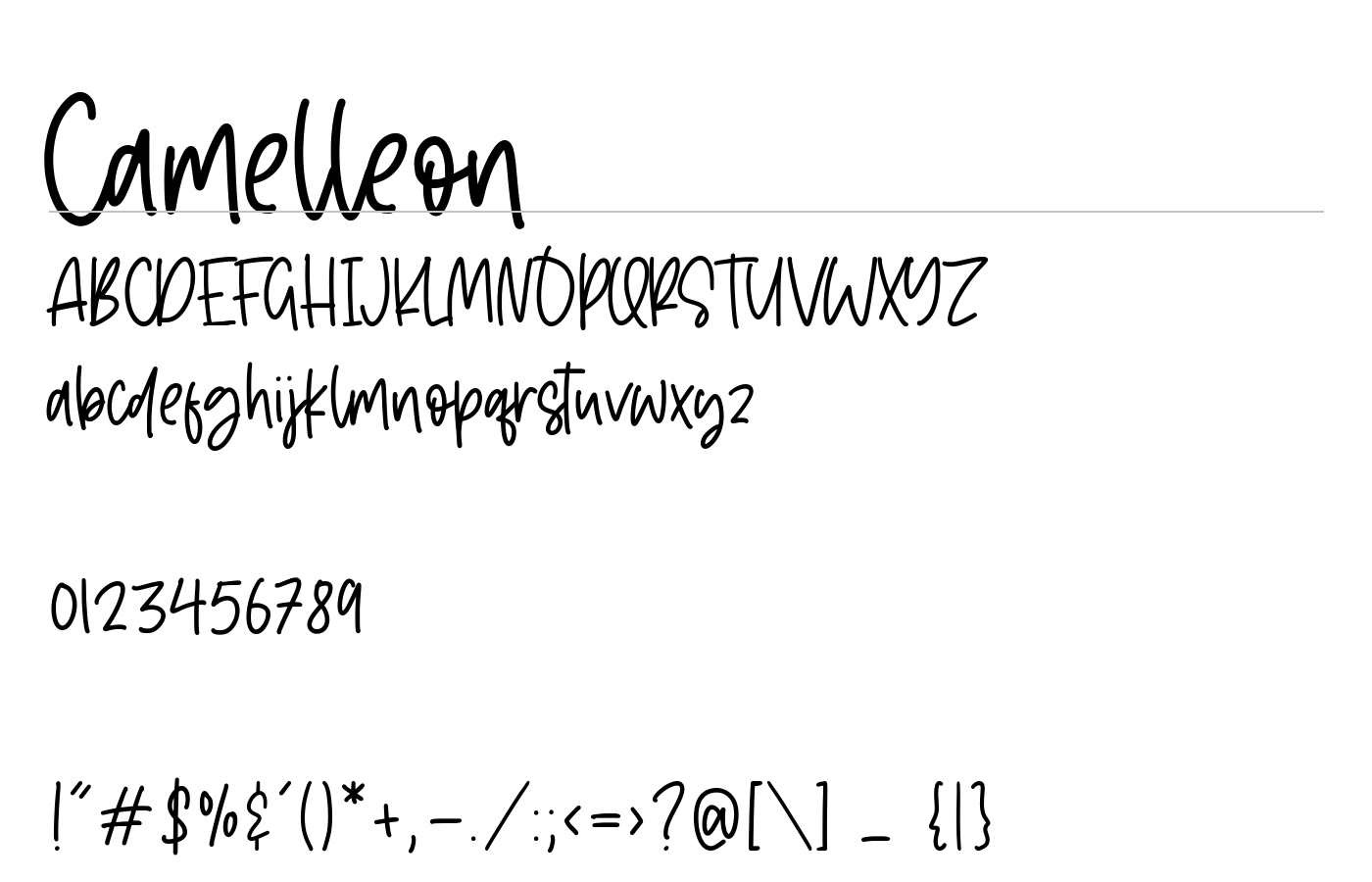
Camelleon is a playful, handwritten sans serif font with a casual, organic feel created by its uneven strokes and lively letterforms. Its tall, narrow characters and informal style make it perfect for personal projects, creative branding, and friendly, approachable designs that want to convey warmth and spontaneity. Ideal for logos, social media, and invitations, Camelleon adds a charming, human touch wherever used.
Camelleon Font
About Camelleon Font
| Font family | Camelleon Font |
| Designer | Balpirick 2020 |